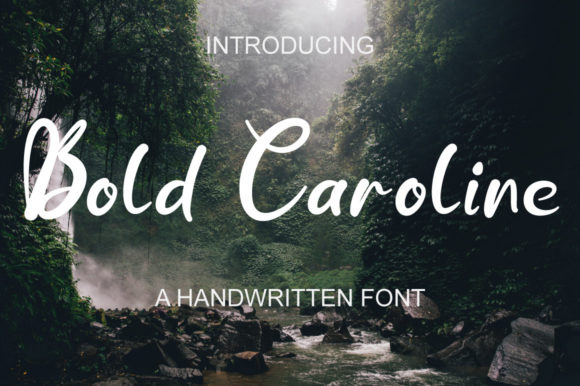
Bold Caroline Font
About Bold Caroline Font
Bold Caroline is a delicate paint brushed handwritten font. This soft font will look great on any design idea. It will add a fun and romantic touch to any of your projects. It is perfect for t-shirts, car decorations, award certificates, cup labels, and more.